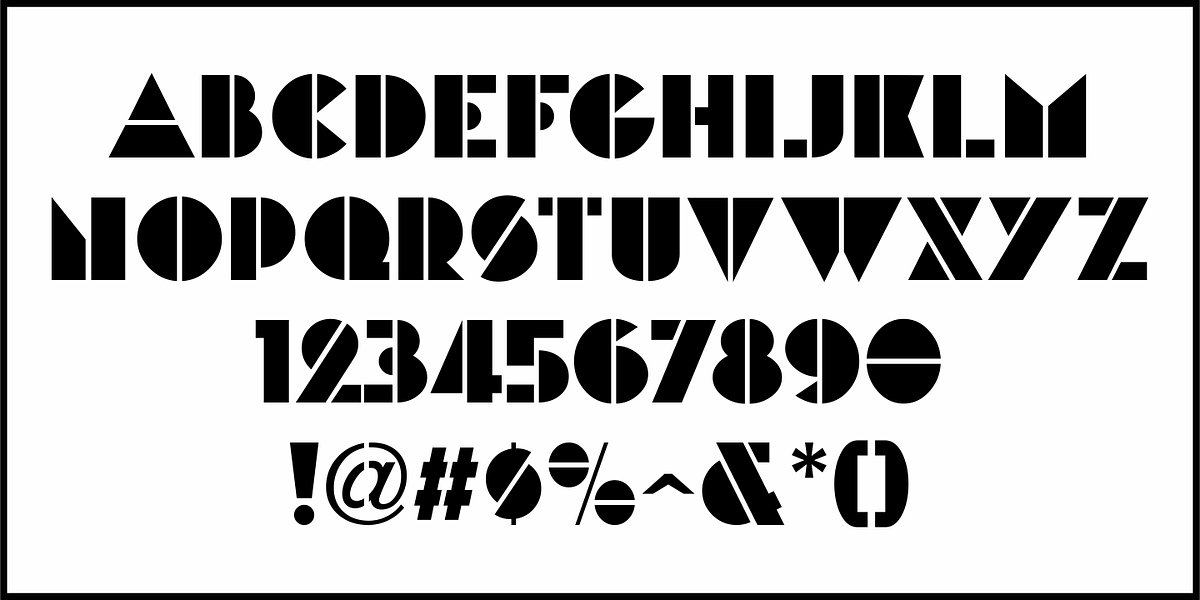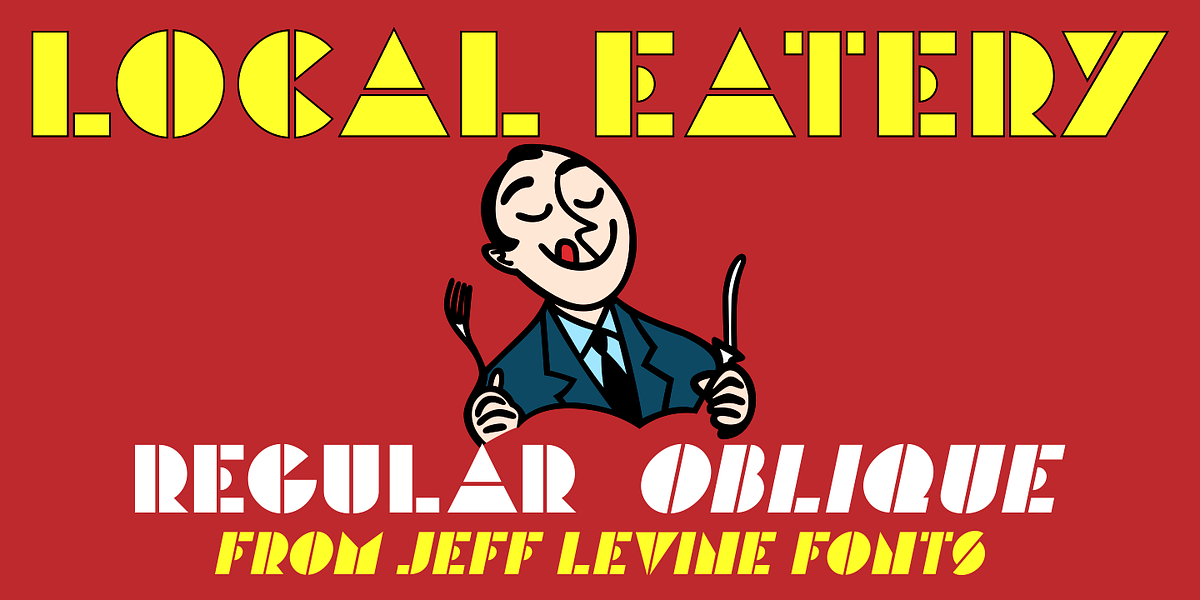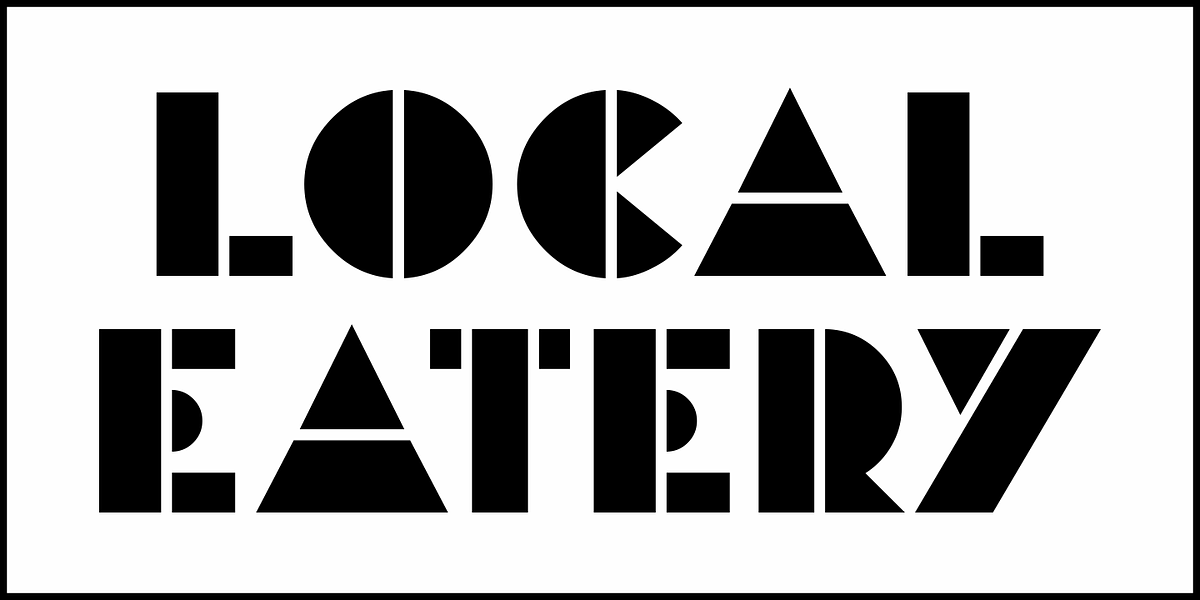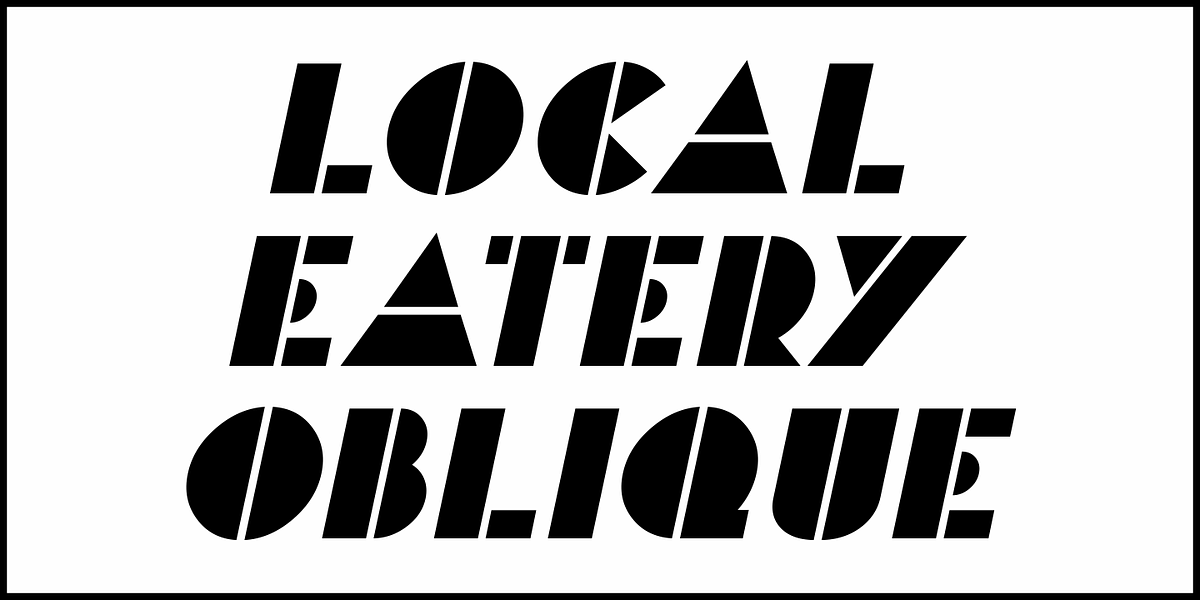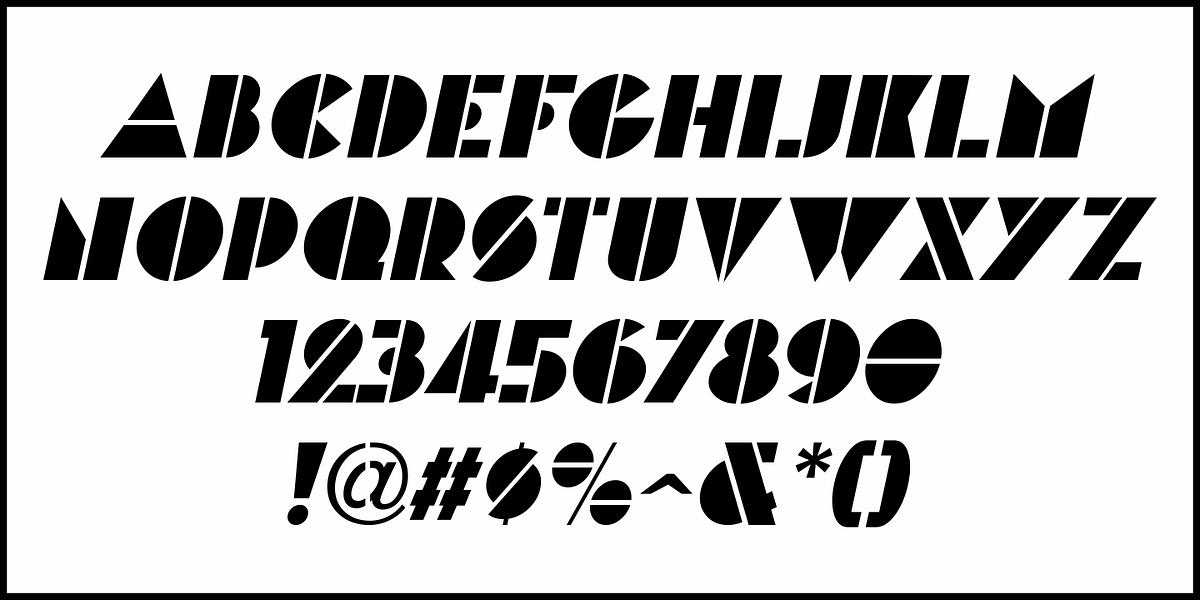
Local Eatery JNL
Here's yet another variation of the classic Futura Black Art Deco stencil form of display lettering.
The inspiration for this typeface came from various images of the Blossom Dairy Co. restaurant, originally opened as an ice cream and sandwich shop located on Quarrier Street in Charleston, West Virginia.
The restaurant first opened in 1938 as an outgrowth of the Blossom Dairy Co. itself, and existed under various ownerships until it permanently closed on Nov. 11, 2016.
Digitally redrawn as Local Eatery JNL, it is available in both regular and oblique versions.